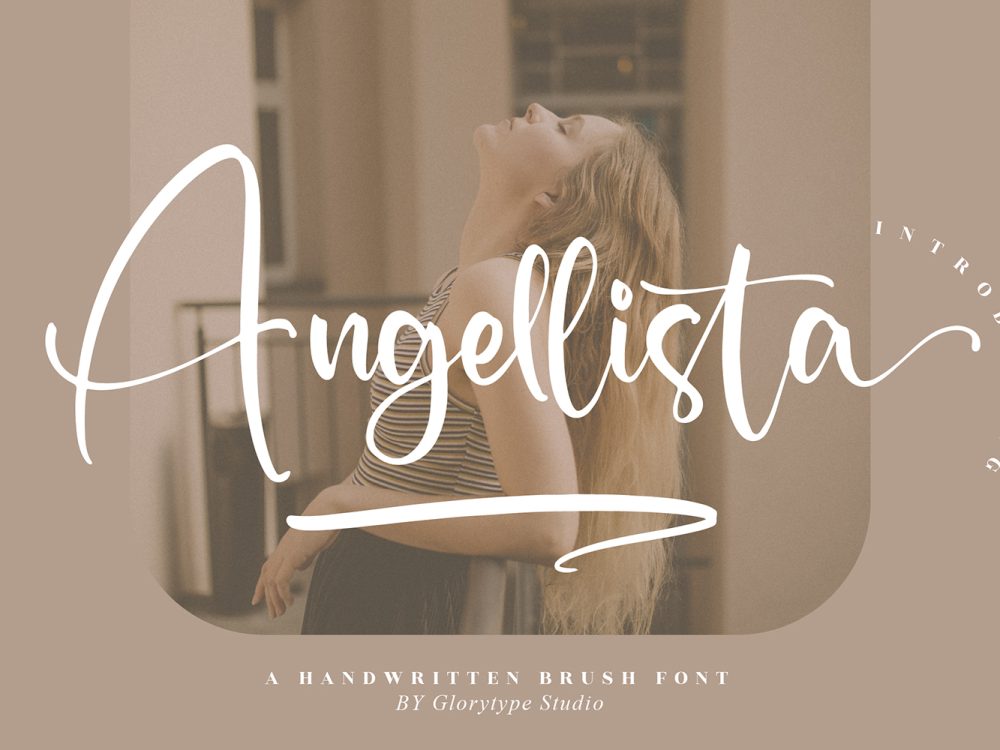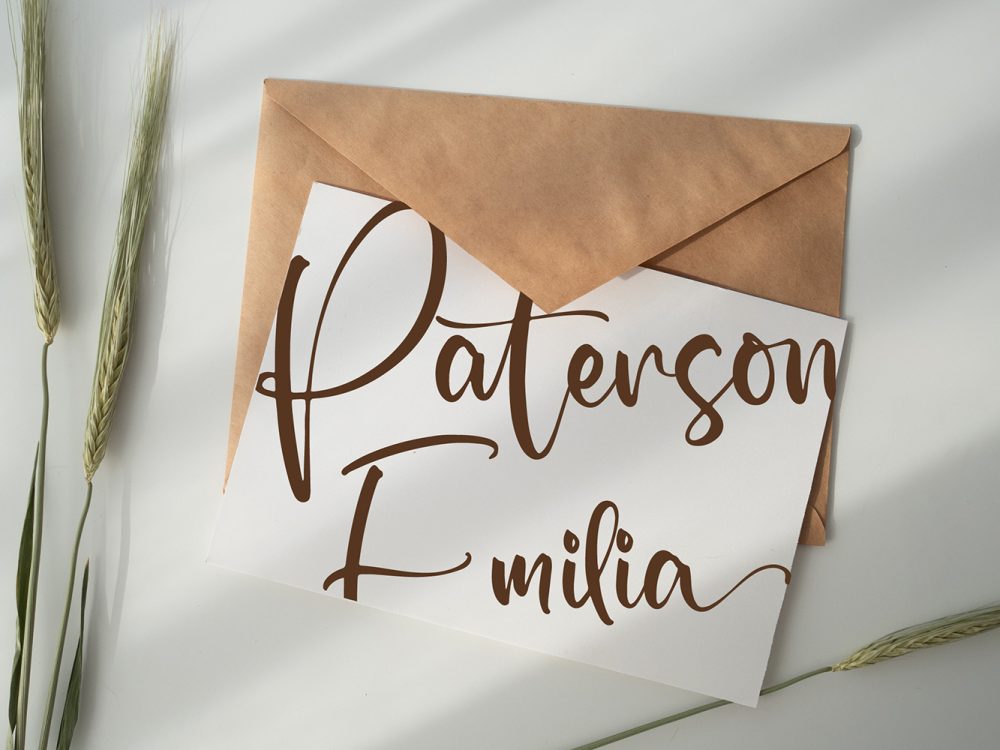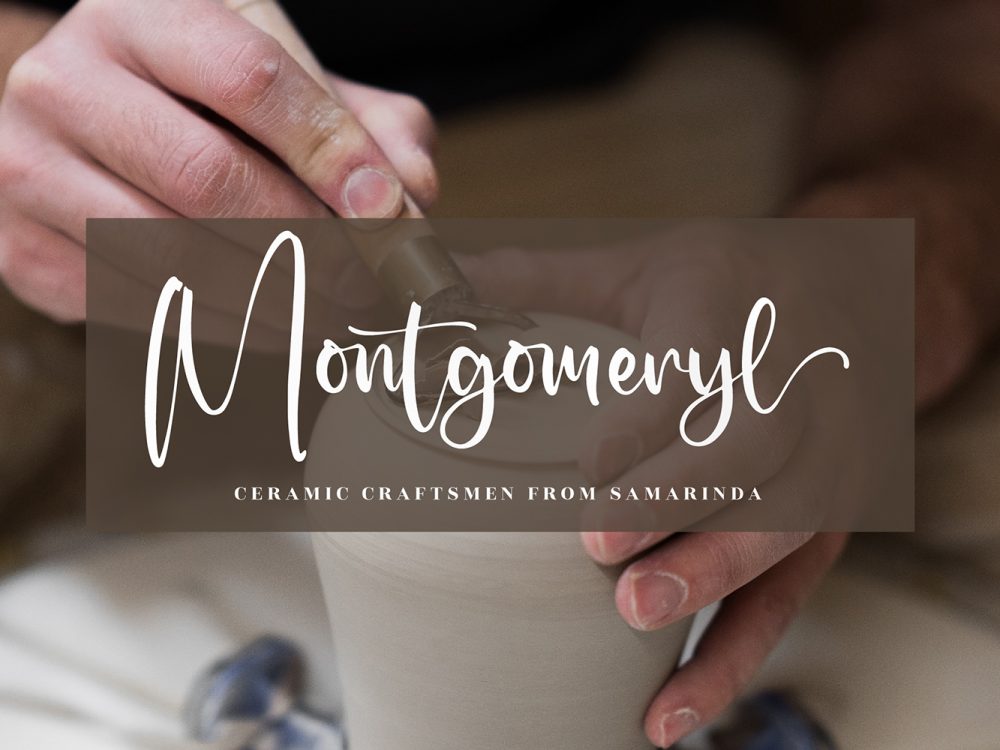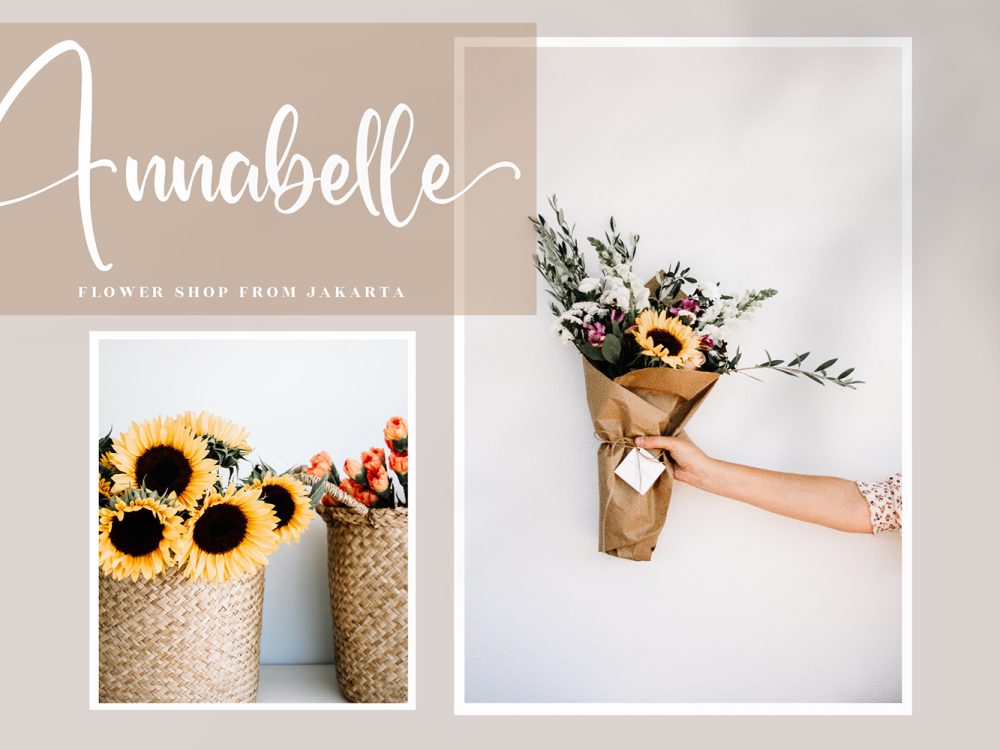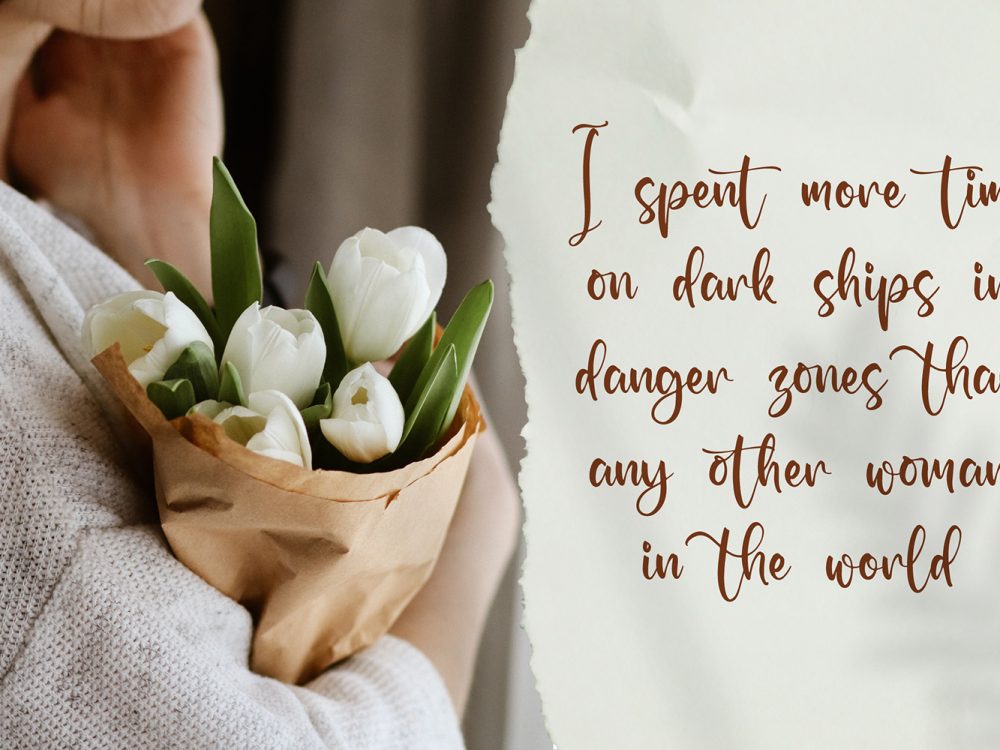
Angellista Free Font
Unveil the unique elegance of Angellista Free Font, a script font exuding distinct charm. Embrace its enchanting style to craft exquisite designs that capture attention. If you like it don’t forget to check out the full version.